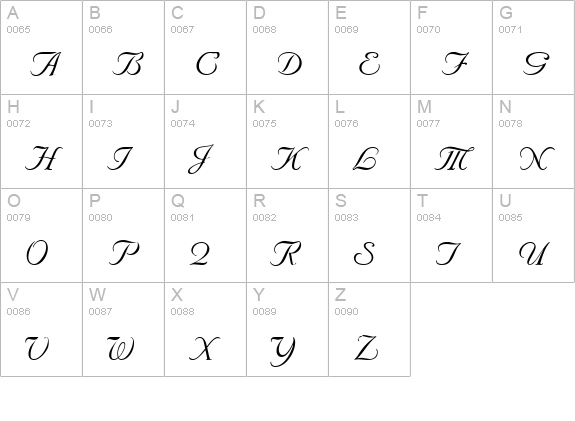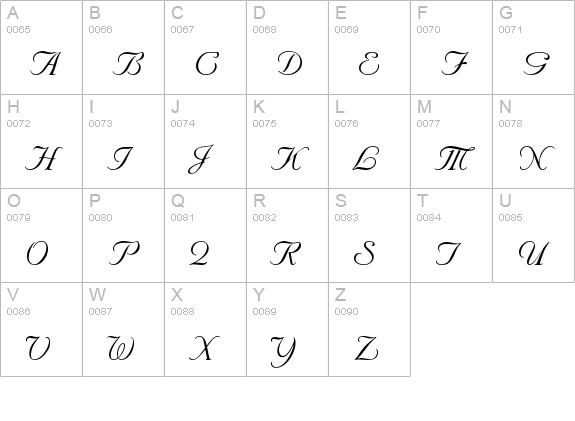
Marriage Script Normal Font Details
Marriage Script Normal is the standard, neutral variant in the Marriage typeface family \xE2\x80\x94 well suited to general body text, paragraphs, and standard typographic work.
Introducing Marriage Script, a beautifully crafted font that exudes elegance and sophistication. This font is perfect for adding a touch of romance to any project, whether it be wedding invitations, love letters, or heartfelt greetings. Its flowing curves and delicate strokes give it a graceful and timeless feel, making it the ideal choice for couples looking to celebrate their love. With Marriage Script, you can easily create stunning designs that capture the essence of love and commitment. This font offers a wide range of uppercase and lowercase letters, as well as ligatures and alternates, allowing you to create unique and personalized designs. Whether you prefer a classic and traditional look or a more modern and contemporary style, Marriage Script has you covered. What's even better is that Marriage Script is free! Yes, you read that right. This incredible font is freely available to download at FontsMarket.com. So, you can embrace the beauty and elegance of Marriage Script without spending a penny. Simply head to FontsMarket.com, search for Marriage Script, and start creating breathtaking designs that will leave a lasting impression. Don't miss out on this amazing opportunity to enhance your projects with the exquisite charm of Marriage Script. Download it for free today at FontsMarket.com and let your creativity soar.